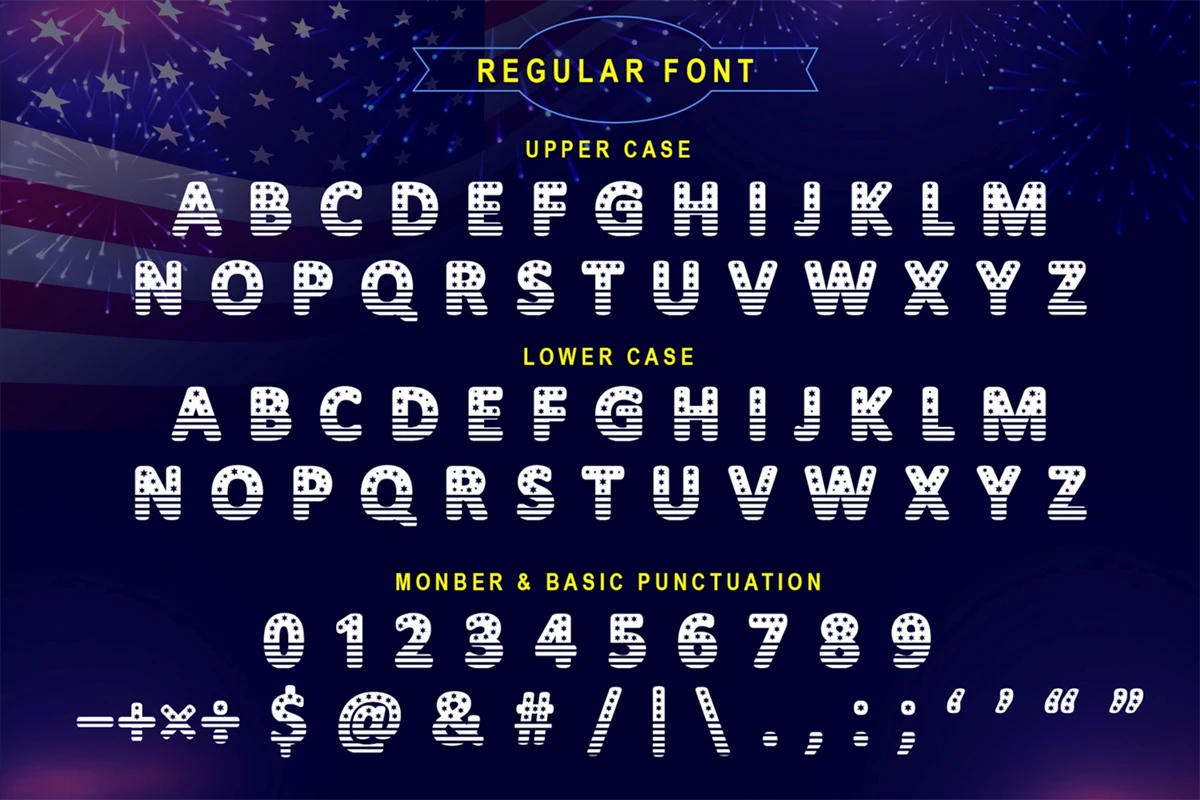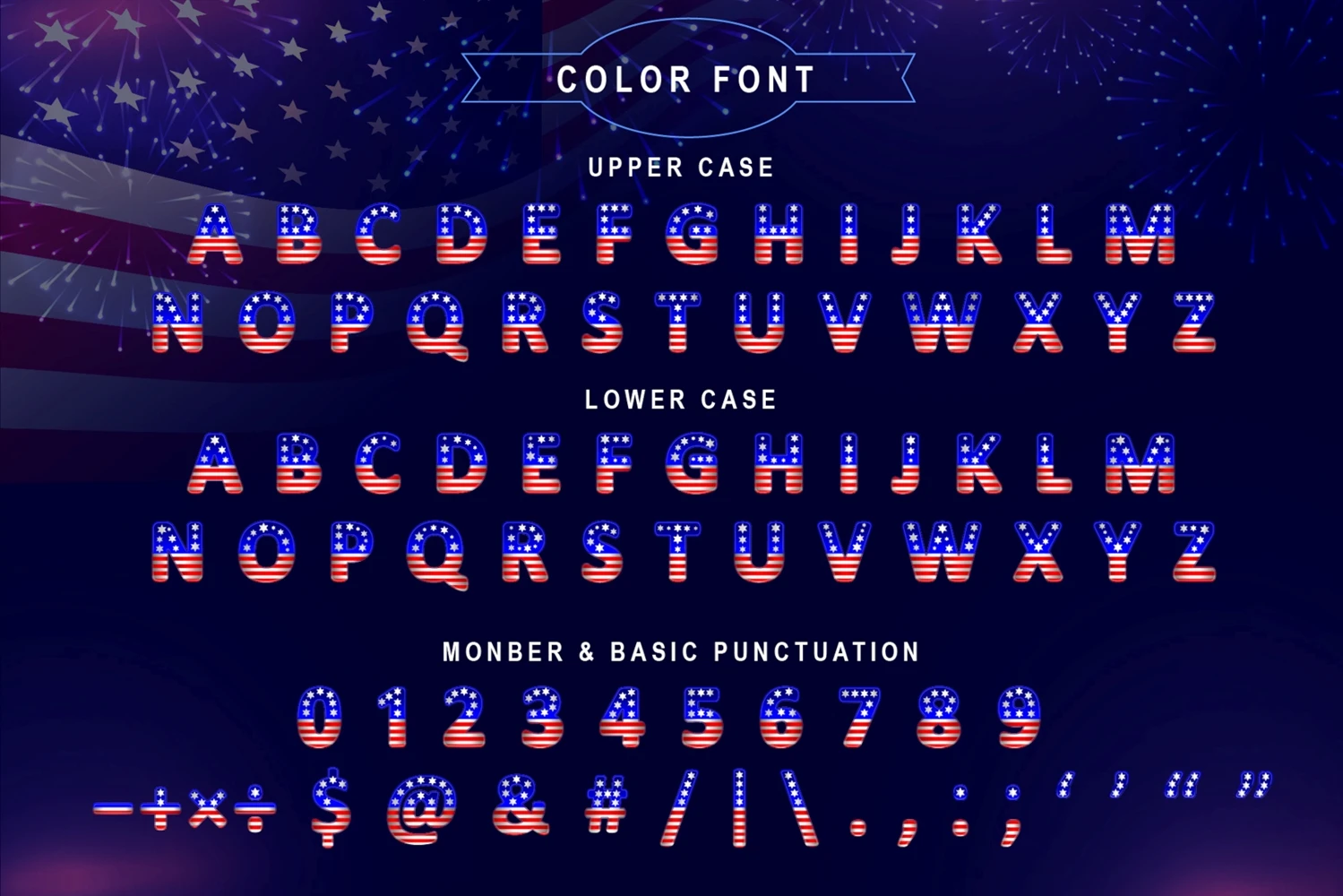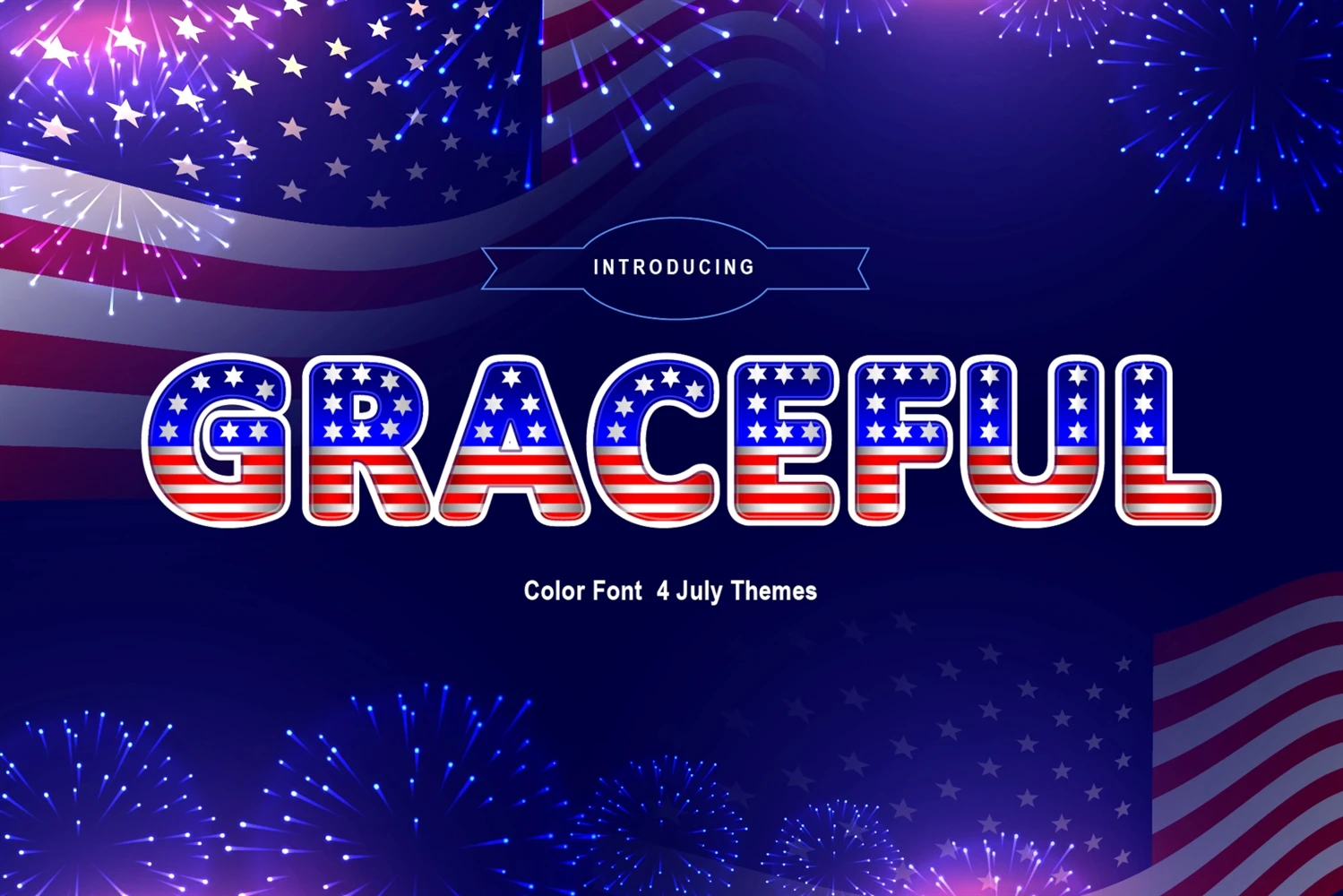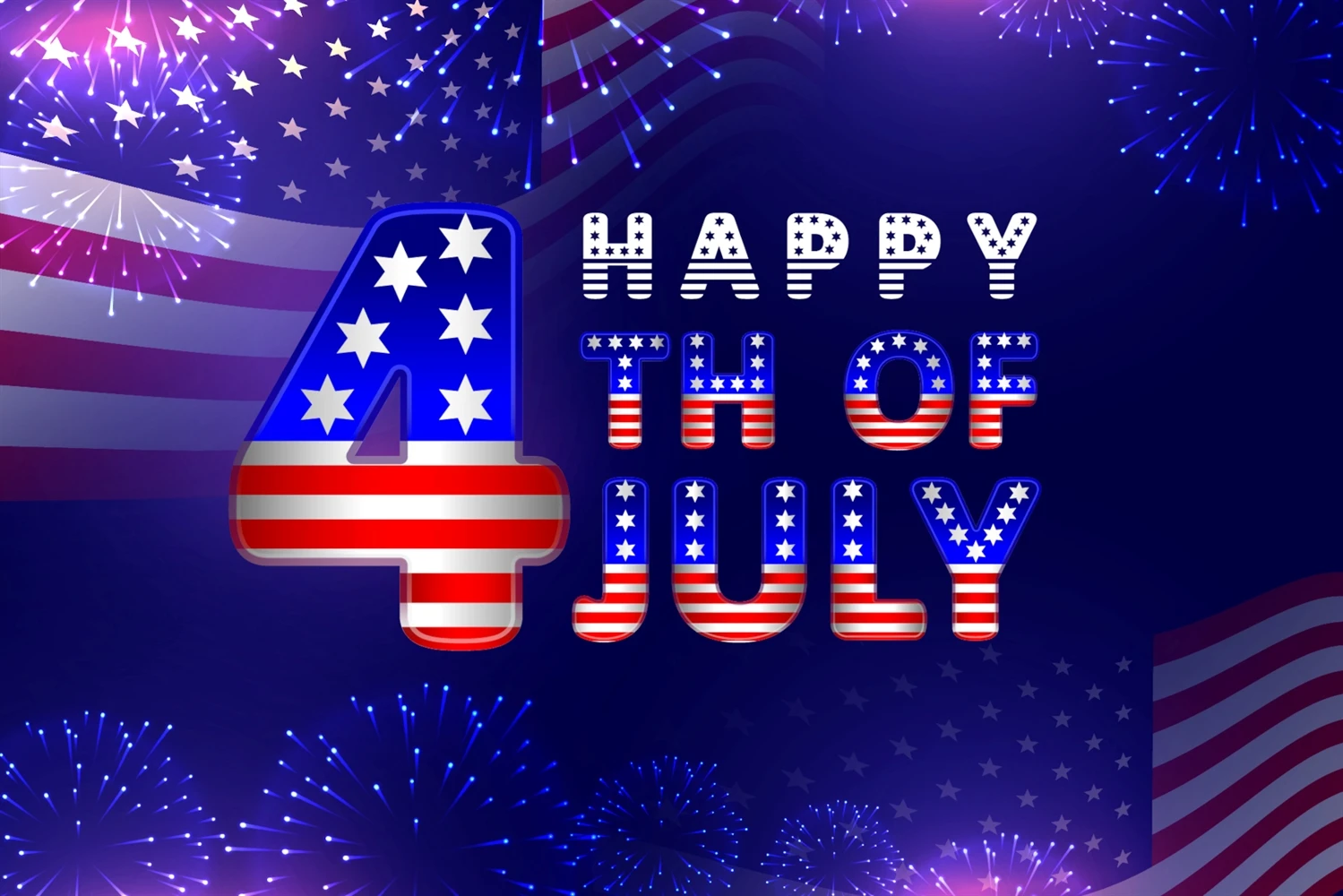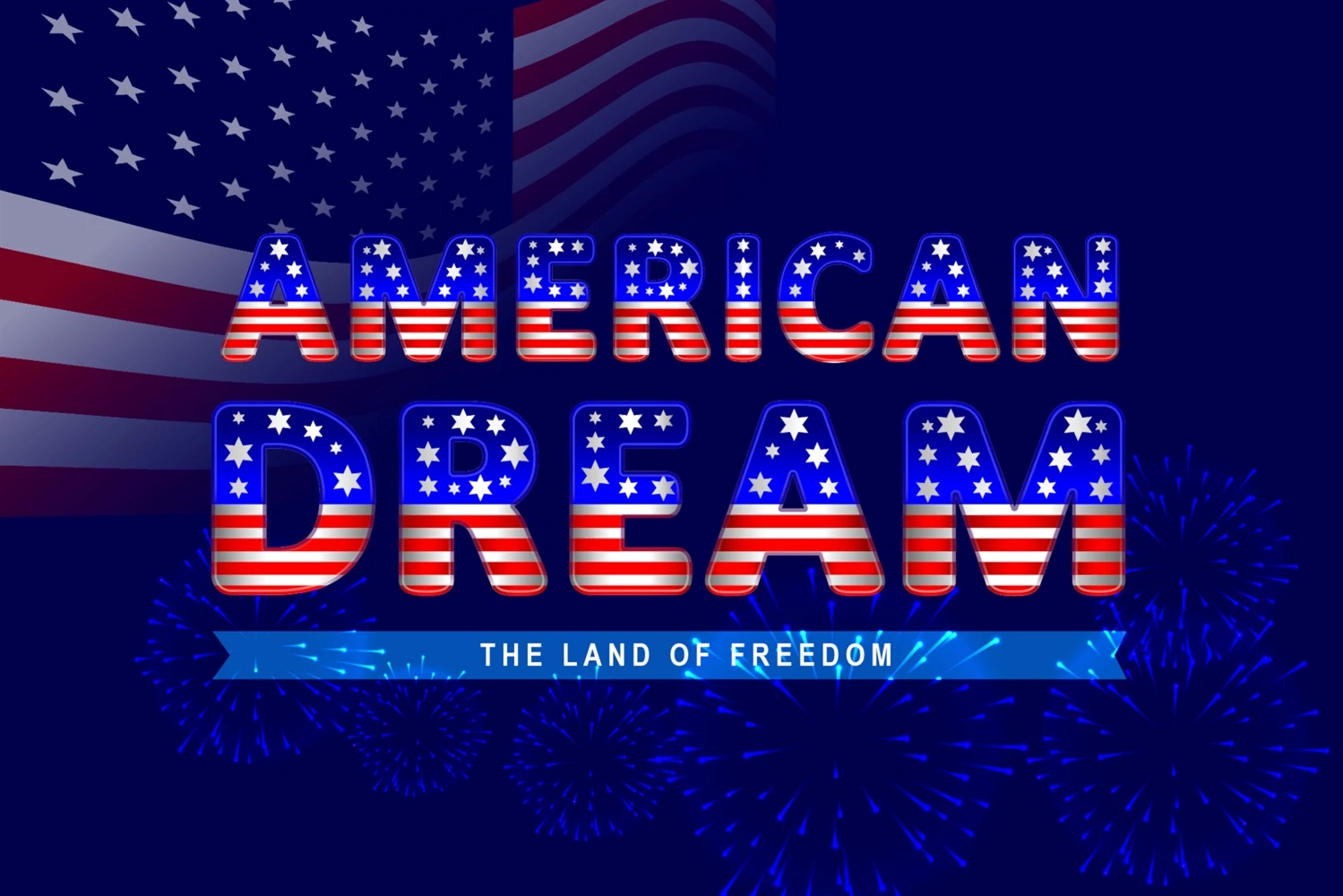
Graceful is a fun duo font (color and decorative), ideal for American projects. It is perfectly suitable for apparel designs, product packaging, branding, name tags, and anything related to the 4th of July!